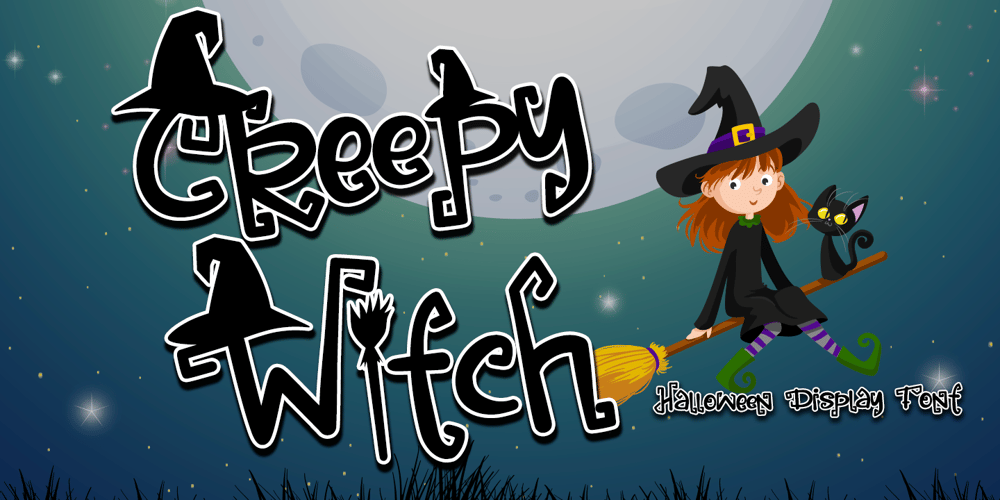
Creepy Witch Font Family was designed by Thomas Aradea and published by Letterara. Creepy Witch contains 1 styles and family package options. Creepy Witch is the ideal font for any Halloween project. Get inspired by its scary feel, and turn any Horror project into an eye-catcher! It will take any craft to the next level! It’s perfect for logos, quotes, posters, for clothing, and every other design which needs a strong and unique touch. This font is PUA encoded which means you can access all of the cute glyphs and swashes with ease! It also features a wealth of special features including alternate glyphs and ligatures.To stay up to date for my latest job, follow me and let’s be friends because there will be many promos.